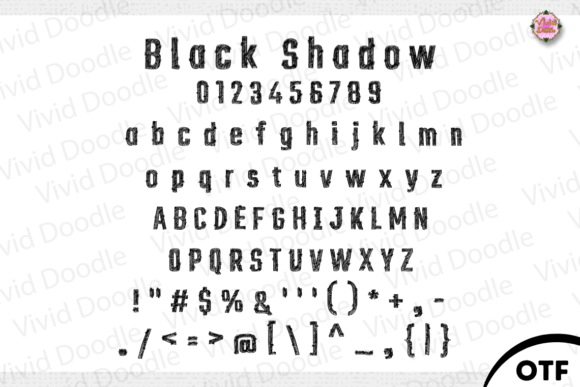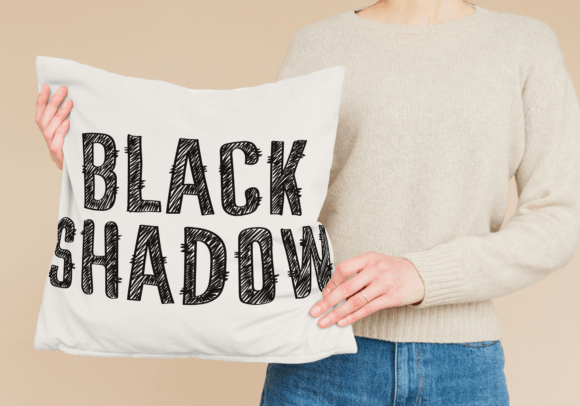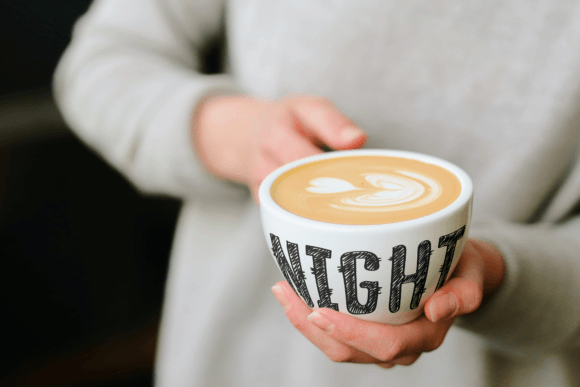
Have you ever found yourself staring at a blank canvas, searching for the perfect spark to ignite your imagination? The moment when the words start flowing, and the ideas begin to take shape, is one of the most exhilarating feelings in the world of design. It’s a rush of creativity that can be captured and harnessed with the right tools – and that’s where the Black Shadow Font comes in.
This enchanting font is designed to add a touch of mystery and urban cool to your designs. Whether you’re working on a Halloween-themed project or creating a captivating nightscape, Black Shadow Font is the perfect addition to breathe life into your imaginative endeavors. Its unique design and artistic flair make it a valuable asset for designers looking to elevate their sketches and graffiti-style artwork.
Key Features of Black Shadow Font
- Unique Characteristics: Features a bold, modern design with a subtle shadow effect, adding depth and visual interest to text.
Designer Review: Black Shadow Font
Overall, I’m quite impressed with the Black Shadow font. It’s got a sleek, edgy vibe that’s perfect for projects that need a touch of sophistication. ✨
Here are some of its strengths:
- Sharp, modern aesthetic that’s ideal for headlines and titles
- Works well in digital and print media, making it a versatile choice
- Elegant, mysterious feel that evokes a sense of luxury and high-end quality
However, I do have some reservations about its limitations:
- May not be the best choice for body text, as it can be difficult to read in smaller font sizes
- Lacks the expressiveness and nuance of more traditional fonts, which may make it feel a bit flat at times
- Some users may find the font’s boldness overwhelming or distracting
Despite these limitations, I think the Black Shadow font is a solid addition to any designer’s toolkit. It’s a great choice for projects that need a bold, eye-catching statement, and its versatility makes it a good option for a wide range of applications.
To get the most out of the Black Shadow font, use it to create dramatic and mysterious designs. Combine it with other bold fonts to create a striking visual effect.
Common use cases for the Black Shadow font include:
1. Headings and titles.
2. Logos and branding.
3. Social media graphics and posters.
Alternatives to Black Shadow Font
Playfair Display is a high-end serif font with elegant and luxurious feel. It’s perfect for creating a sophisticated and refined look in designs such as invitations, luxury branding, and high-end advertising. When to use: Luxury branding, invitations, high-end advertising.
Playfair Display is more elegant and refined compared to Black Shadow Font, which has a more dramatic and mysterious feel. While Black Shadow Font is great for creating a bold and striking look, Playfair Display excels at creating a sense of luxury and sophistication.
Great Vibes is a modern script font with a casual and friendly feel. It’s perfect for creating a relaxed and approachable look in designs such as food branding, lifestyle advertising, and social media graphics. When to use: Food branding, lifestyle advertising, social media graphics.
Great Vibes is more casual and approachable compared to Black Shadow Font, which has a more dramatic and mysterious feel. While Black Shadow Font is great for creating a bold and striking look, Great Vibes excels at creating a sense of relaxation and approachability.